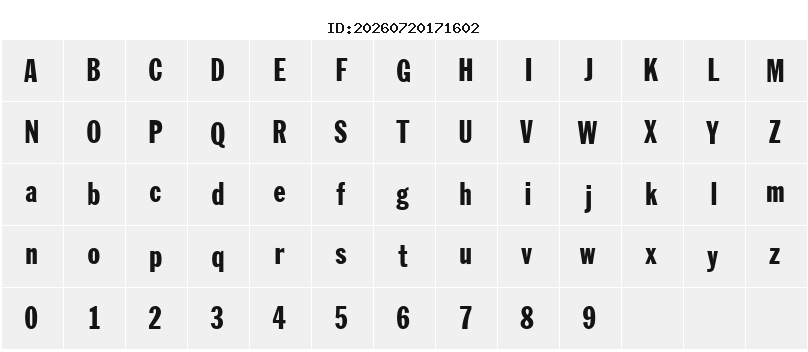
FranklinHeadlineNarrow Preview
• Font Name: FranklinHeadlineNarrow
• Full Font Name: FranklinHeadlineNarrow-Bold
• PostScript Name: FranklinHeadlineNarrow-Bold
About FranklinHeadlineNarrow.ttf
FranklinHeadlineNarrow.ttf is a modern, elegant sans-serif font designed for ultimate readability and visual harmony. Perfect for branding, headlines, web design, and print materials.